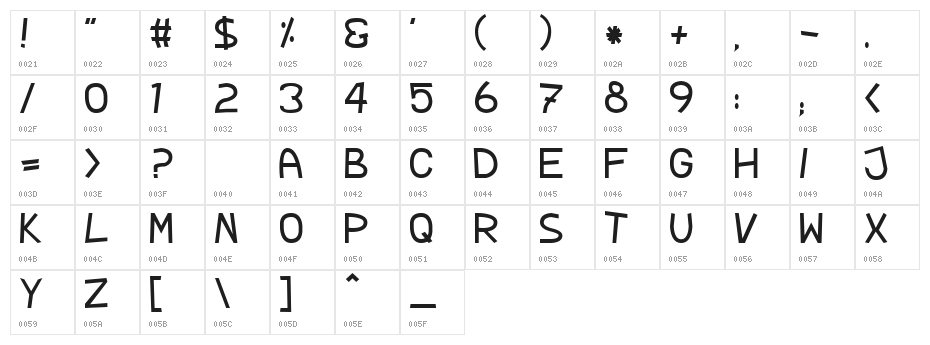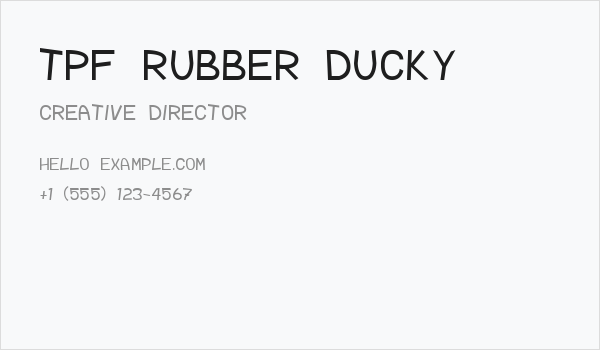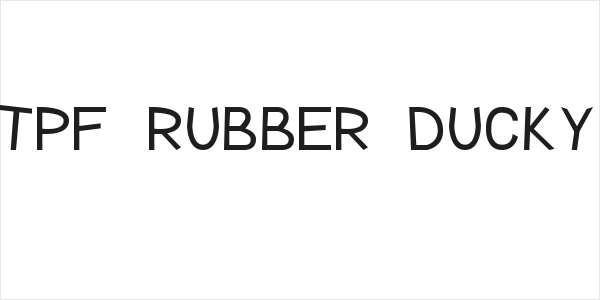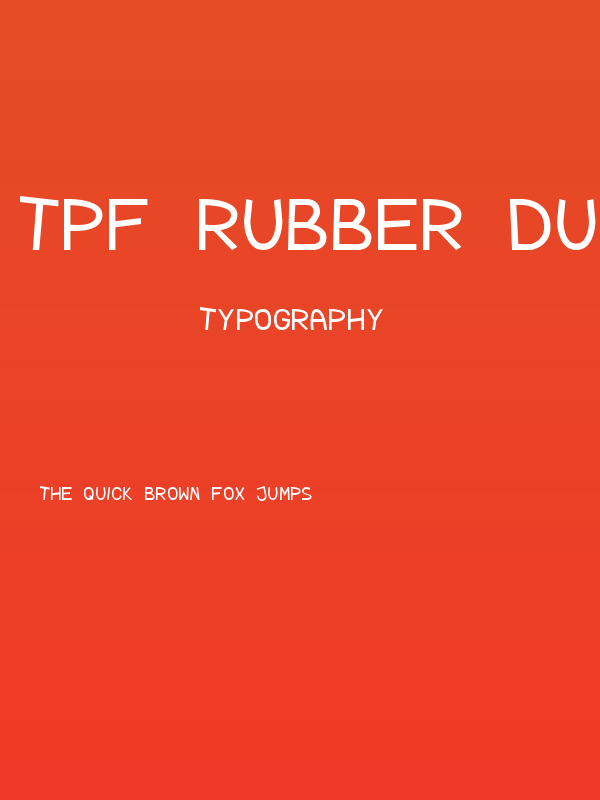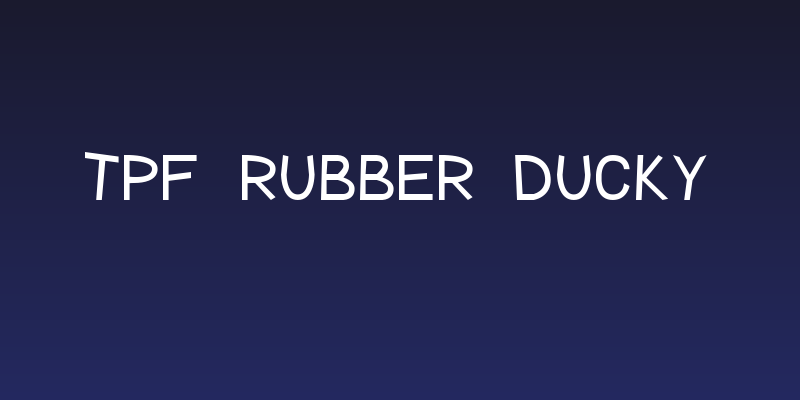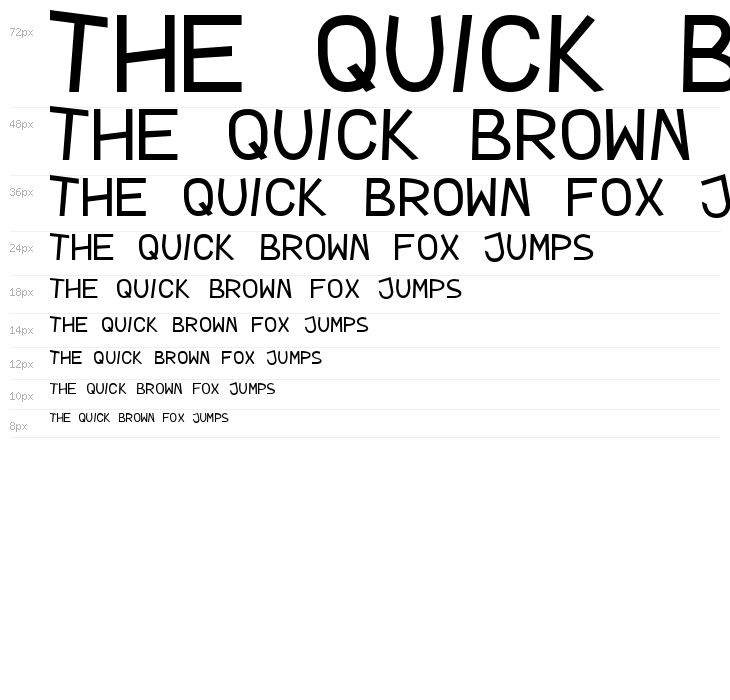
TPF Rubber Ducky Font
TPF Rubber Ducky Description
This font features a playful and quirky design with a handwritten style that gives it a casual and friendly appearance. The letters are slightly tilted, adding a sense of movement and energy. The strokes are consistent in thickness, providing a uniform look across all characters. The font includes both uppercase and lowercase letters, numerals, and a variety of special characters. Its unique style makes it suitable for projects that require a fun and informal touch.
| Proposed Projects | Ideal for children's books, playful branding, casual invitations, and creative posters. |